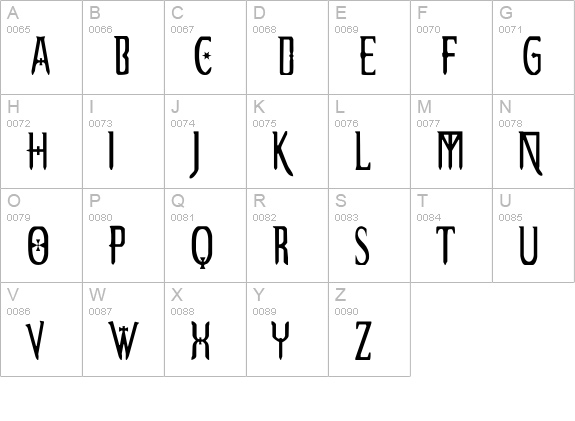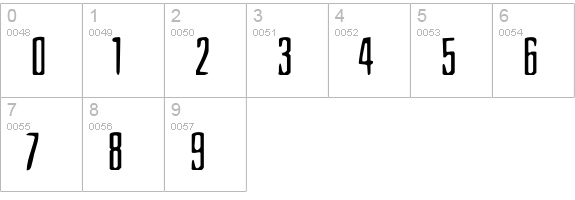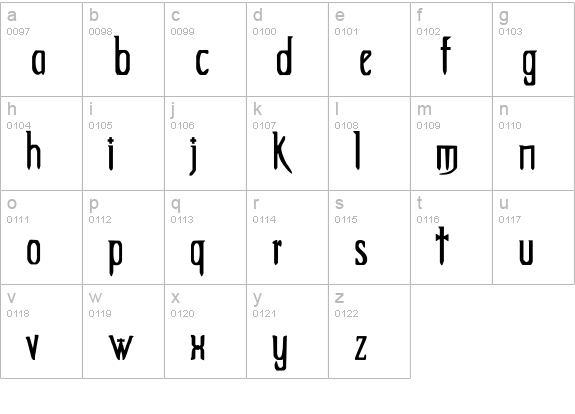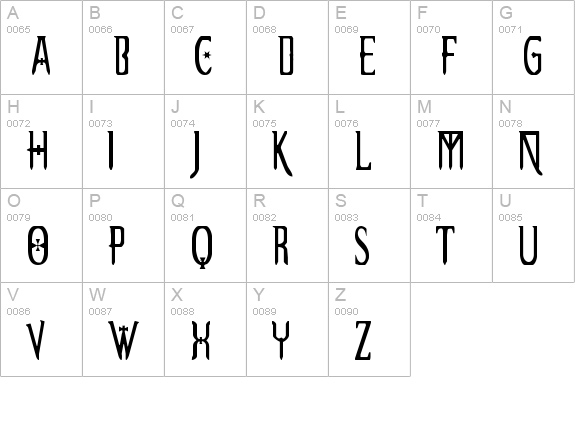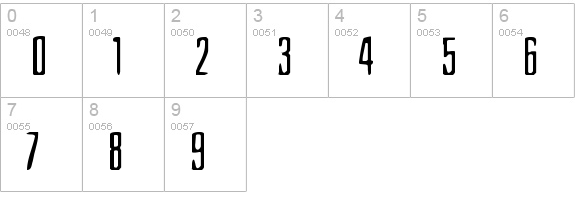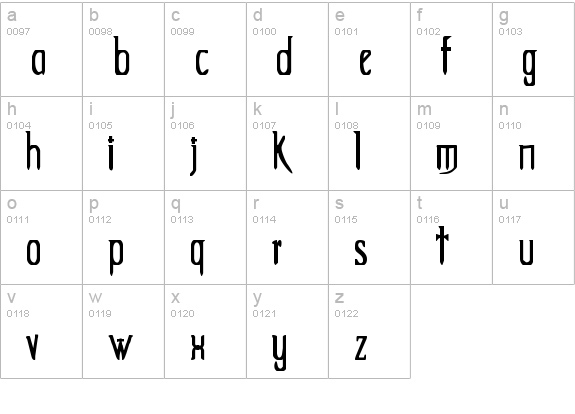
Extemplary Font Details
Introducing Extemplary font - a modern and versatile typeface that exudes elegance and sophistication. With its clean lines and stylish design, Extemplary is perfect for a wide range of design projects, from branding to editorial, and everything in between. This exquisite font features sleek letterforms and a timeless appeal that will elevate any creative project to the next level. What sets Extemplary font apart is not only its impeccable design but also its accessibility. This premium font is available for free download at FontsMarket.com, making it easy for designers and creatives to add a touch of class to their work without breaking the bank. Whether you're working on a logo, website, or print materials, Extemplary font is sure to make a lasting impression with its effortless charm and refined aesthetic. Don't miss out on the opportunity to enhance your designs with the exquisite Extemplary font. Download it for free today at FontsMarket.com and unlock a world of possibilities for your next project.